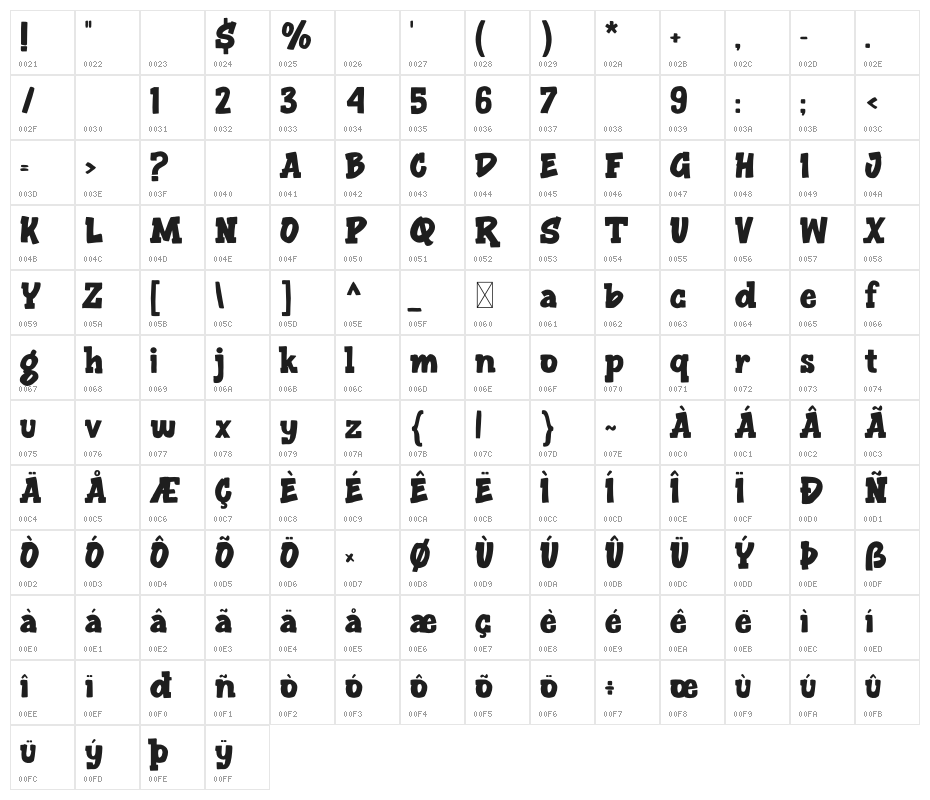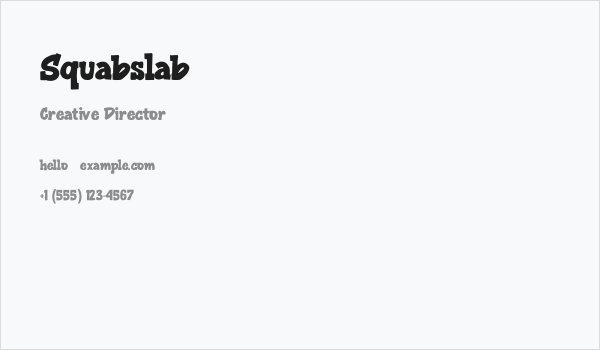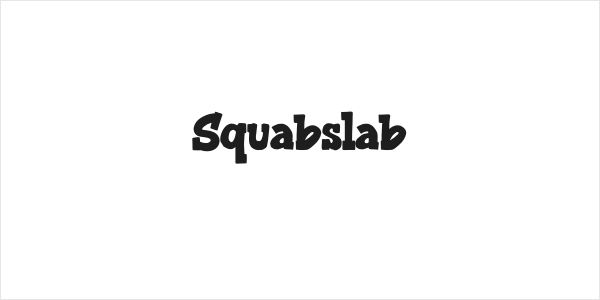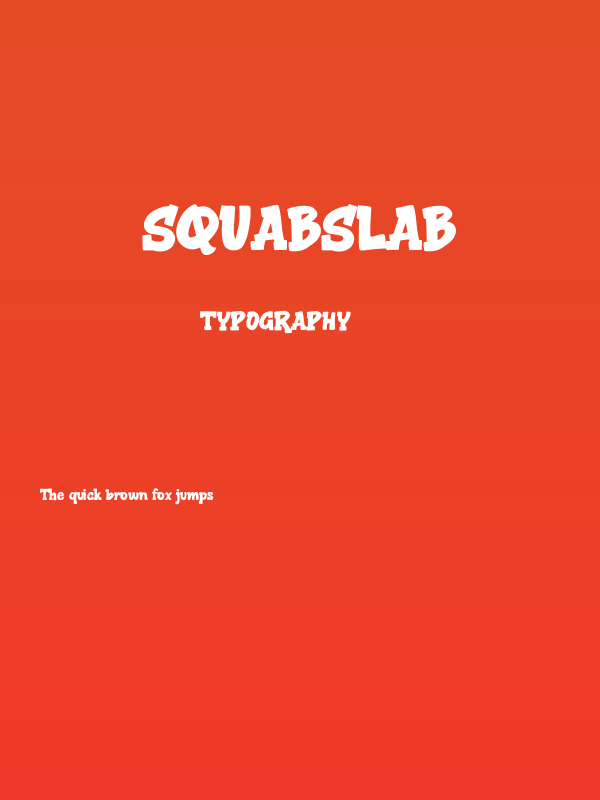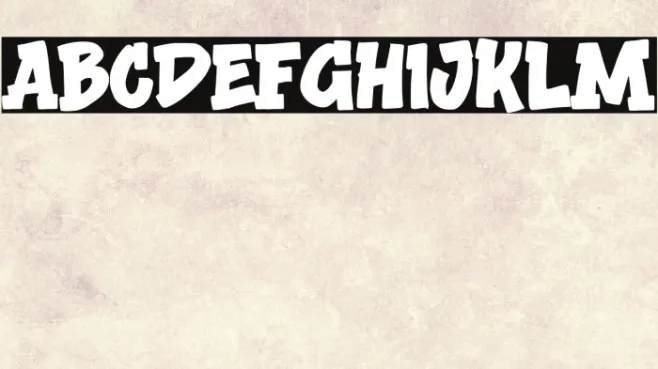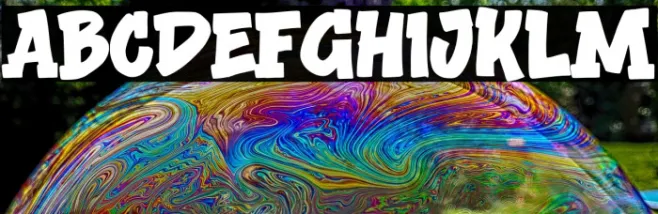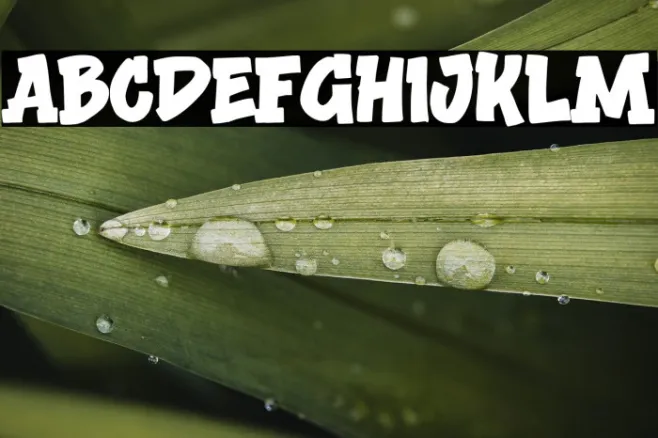
Squabslab Font
Squabslab Description
This font features a bold and playful style with thick, uneven strokes that give it a hand-drawn appearance. The characters have a slightly irregular shape, adding to the whimsical and informal feel. The uppercase letters are robust and commanding, while the lowercase letters maintain a consistent weight, contributing to the overall cohesive look. The numbers are equally bold, matching the style of the letters. Special characters are creatively designed, maintaining the playful aesthetic. This font is ideal for projects that require a fun and engaging visual impact.
| Overall Style | Playful, Whimsical, Hand-drawn |
| Use Case | Headlines, Posters, Branding |
| Proposed Projects | Ideal for children's books, playful branding, posters, and creative invitations. |